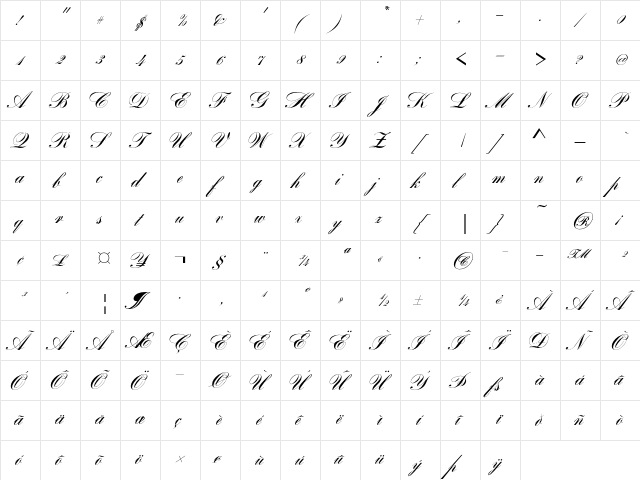
Bank Script D Regular
Design Context for Bank Script D Typeface
Bank Script D brings a calligraphic fluidity to the page — its connecting strokes and expressive curves give it an unmistakably human quality.
Font Pairing: Combine Bank Script D with a simple geometric sans for maximum contrast — the tension between flowing curves and clean structure is a classic typographic pairing.
Pro Tip: Use Bank Script D for short runs of text — names, titles, or taglines. Extended body copy in script faces tires the eye quickly.